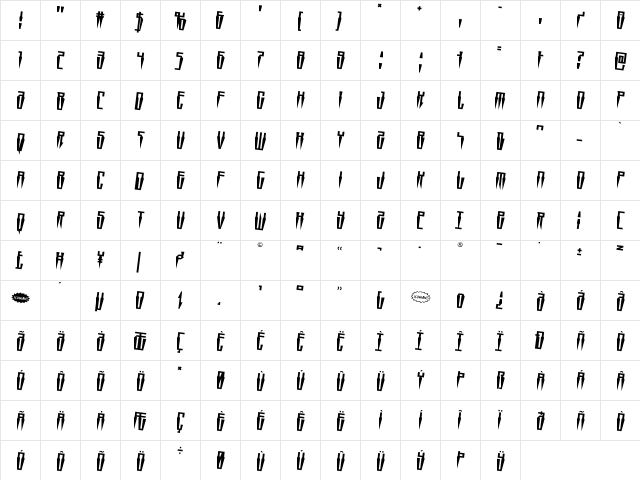
Swordtooth Rotated 2 Regular
Design Context for Swordtooth Rotated 2 Typeface
Swordtooth Rotated 2 is a composed and adaptable typeface that performs quietly and consistently across a wide range of design contexts.